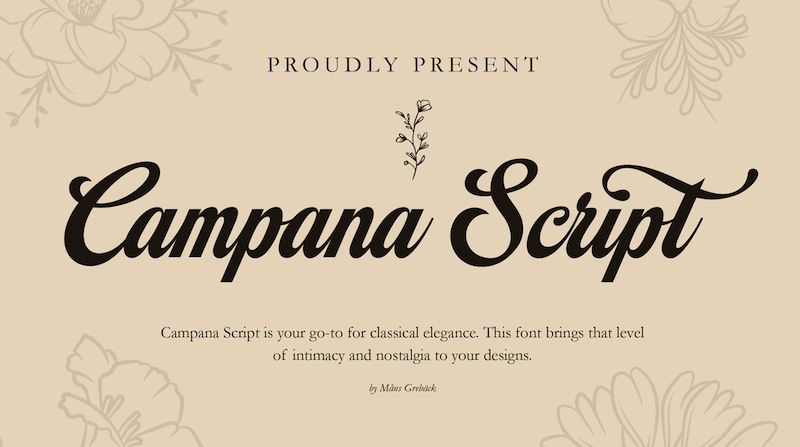
Font name: | Campana Script |
NOTE: This font is for PERSONAL USE ONLY! To purchase a commercial license, visit: http://mn.sg/campana-script Campana Script is your classical elegance typeface. Designed with heavy lines and intricate swashes, Campana Script suits formal headlines or a tasty logotype. Use underscore _ to make a swash. Example: Deco_rative Use multiple underscores to make different underlines. Example: Candy__shop For questions, please visit www.mansgreback.com/faq |